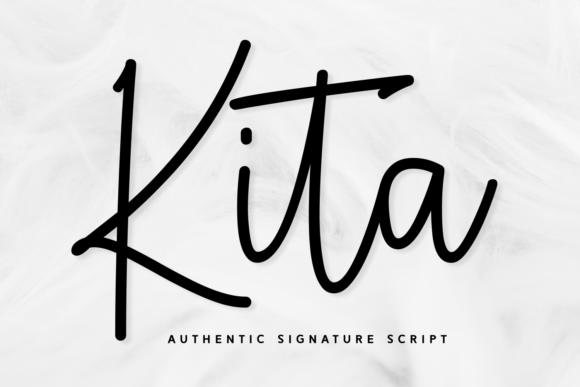
Kita Font: A Symphony of Elegance and Grace in Every Stroke
Step into the realm of timeless sophistication with Kita Font, a script font that exudes unparalleled elegance and grace in every stroke. This exquisite creation by Creative Fabrica Fonts is an ode to beauty, a symphony of flowing lines and enchanting curves that will elevate your designs to new heights.
Immerse yourself in the romantic allure of Kita Font, where each letter dances across the page like a delicate whisper. Its refined strokes and graceful flourishes lend an air of exclusivity to your projects, making them stand out from the mundane. Whether you're crafting heartfelt invitations, designing captivating marketing materials, or simply adding a touch of charm to your personal creations, Kita Font is your perfect companion.
With Kita Font, you'll unleash a world of possibilities, transforming ordinary designs into captivating masterpieces. Its versatility extends far beyond romantic themes, seamlessly adapting to a myriad of creative endeavors. From elegant wedding invitations and heartfelt greeting cards to captivating logos and alluring social media graphics, Kita Font effortlessly elevates every project it graces.
Experience the transformative power of Kita Font and witness how its enchanting allure breathes life into your designs. Its meticulously crafted characters will captivate your audience, leaving them spellbound by the sheer beauty and sophistication of your creations. Prepare to be amazed as Kita Font weaves its magic, turning your artistic visions into breathtaking realities.